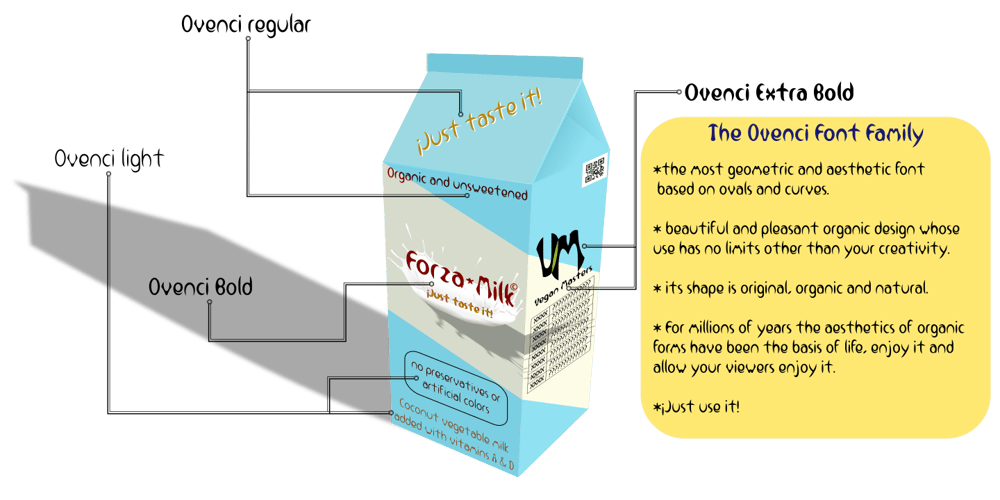
Ovenci Font Family was designed by Victor Salceda and published by ENCI Fonts. Ovenci contains 4 styles and family package options. Ovenci is a unique font family based on ovals and curves. Its unique and original design makes it unlike any other.As in nature, the oval curves of Ovenci family combine very well with the rest of the shapes. Trust your eyes to create the perfect mix for your projects using the Ovenci fonts family along with other fonts that you consider appropriate for what you want.For millions of years organic forms have been part of creation. The shape of Ovenci family glyphs is extremely organic, which makes it very pleasing to the eye, so you can give it the use you want.Thank you for choosing us, you will surely create great things with the Ovenci family.